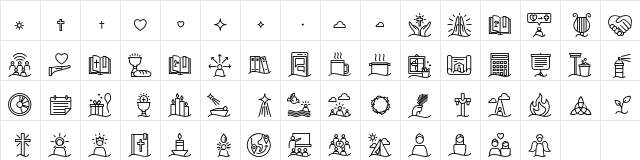
Liturgica Semibold Font Preview
Liturgica Semibold
Liturgica Semibold Font Details
Design Context for Liturgica Typeface
Liturgica is a composed and adaptable typeface that performs quietly and consistently across a wide range of design contexts. Its bold stroke weight gives it real presence on the page.